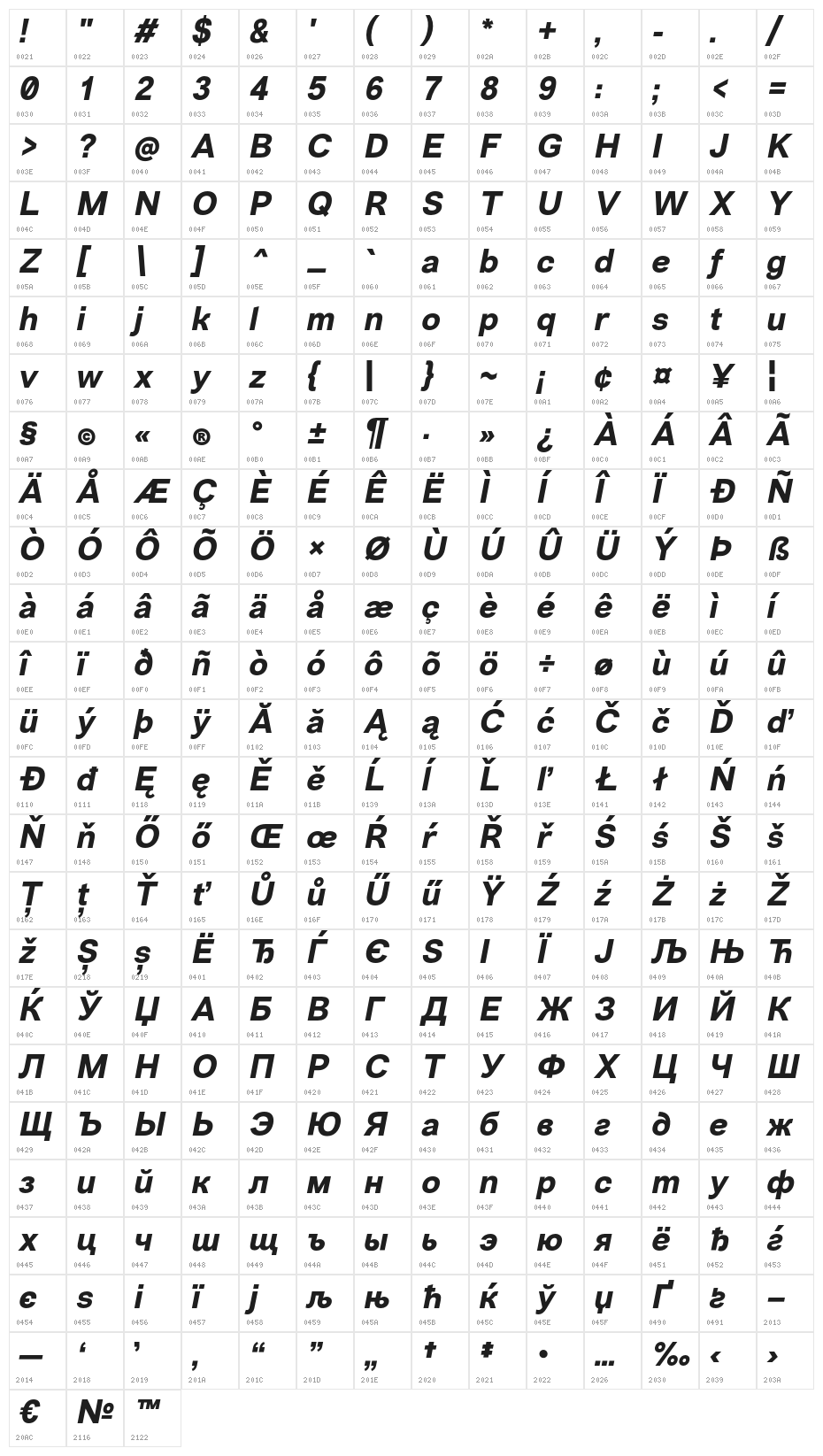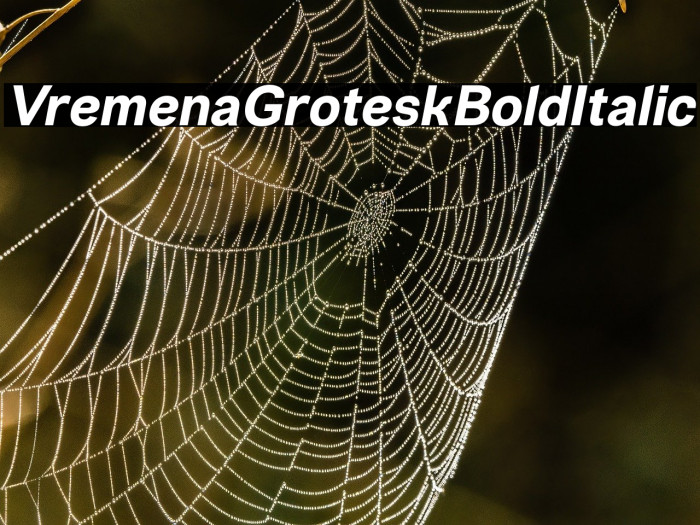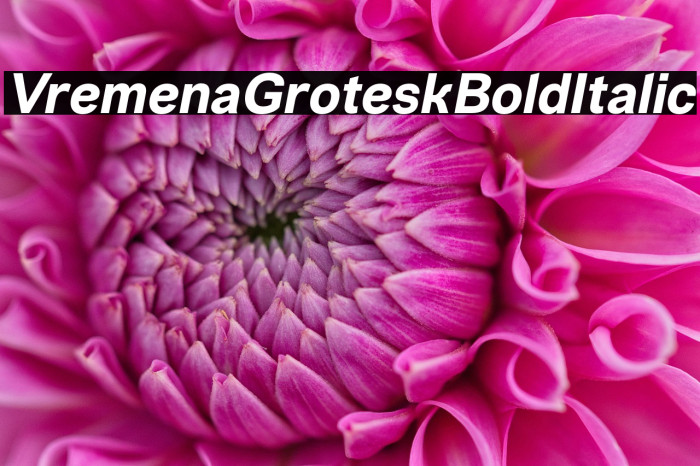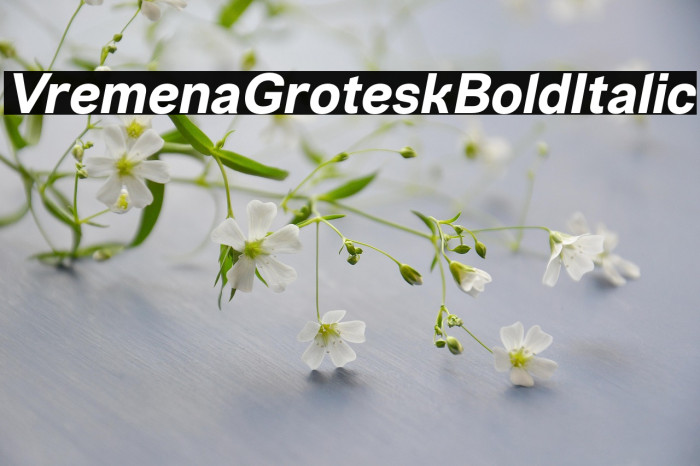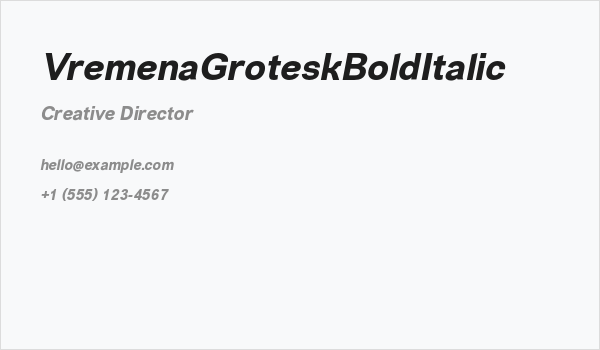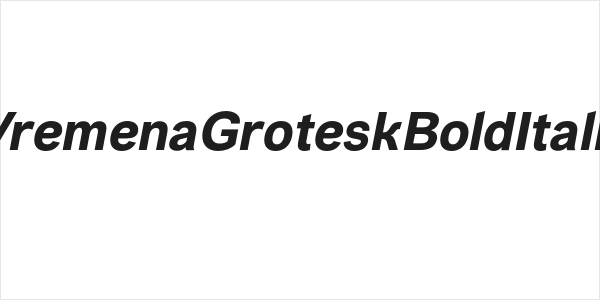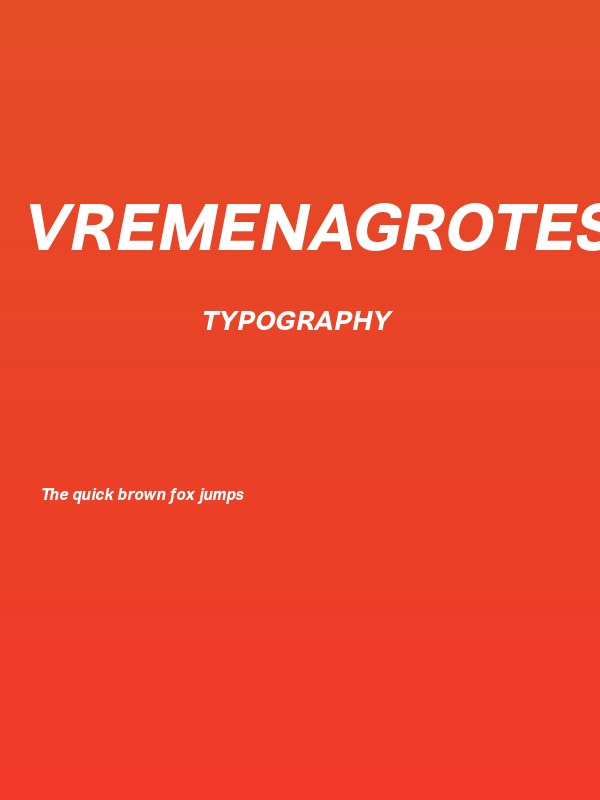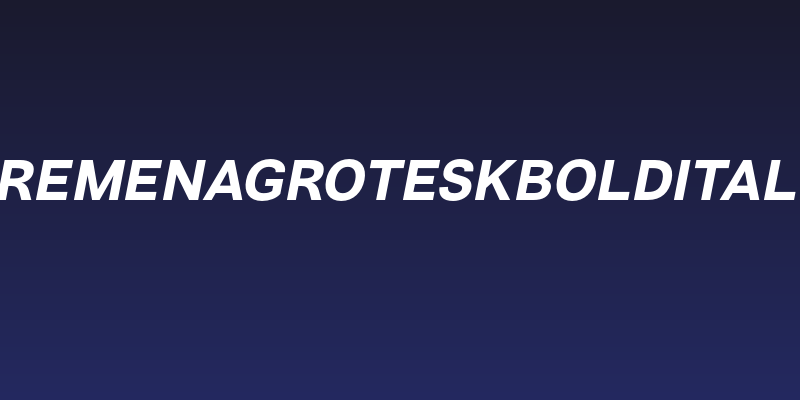
VremenaGroteskBoldItalic Font
VremenaGroteskBoldItalic Description
This typeface exhibits a bold and italicized style, characterized by its strong presence and dynamic slant. The letters are sans-serif, providing a clean and modern appearance. The uppercase and lowercase characters maintain a consistent weight, ensuring readability and impact. The numerals are equally bold, matching the overall style of the alphabet. Special characters are designed with the same attention to detail, making them suitable for various applications. The font's boldness and italic nature make it ideal for headlines and titles, where emphasis is required. Its modern look is versatile, fitting well in both digital and print media.
| Proposed Projects | Ideal for branding, advertising, and editorial design projects that require a strong and modern typeface. |